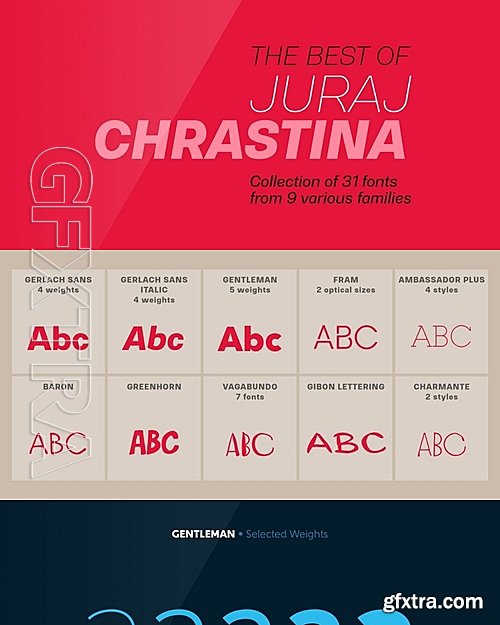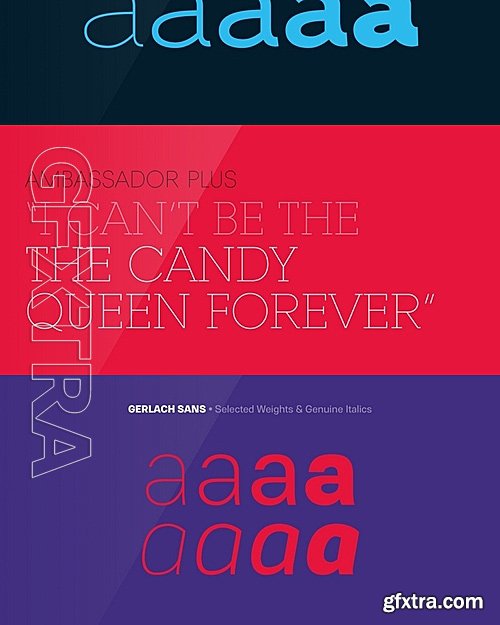
Juraj Chrastina is offering a collection of 31 fonts from 9 various families at an incredible discount.
This bundle brings together the most functional styles from versatile text families like Gentleman and Gerlach, as well as display families Fram and Ambassador Plus, alongside original handwritten designs like Charmante, Gibon or Vagabundo.